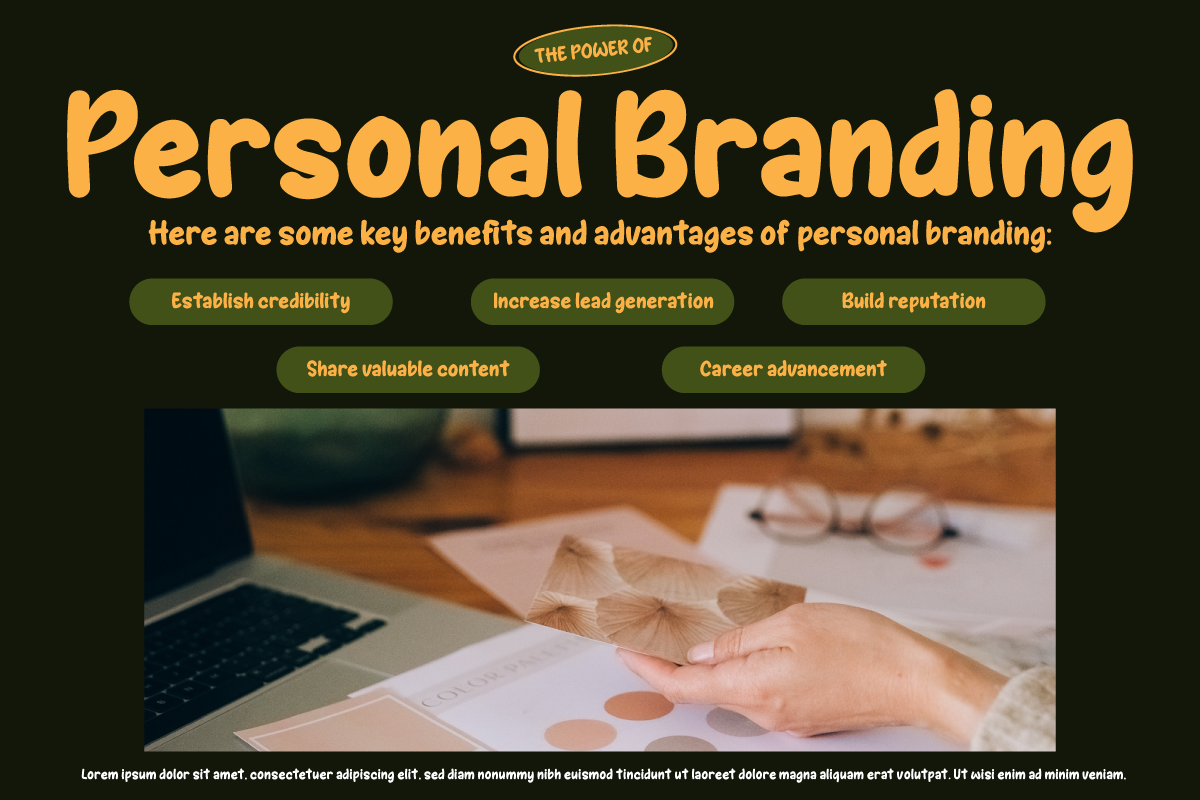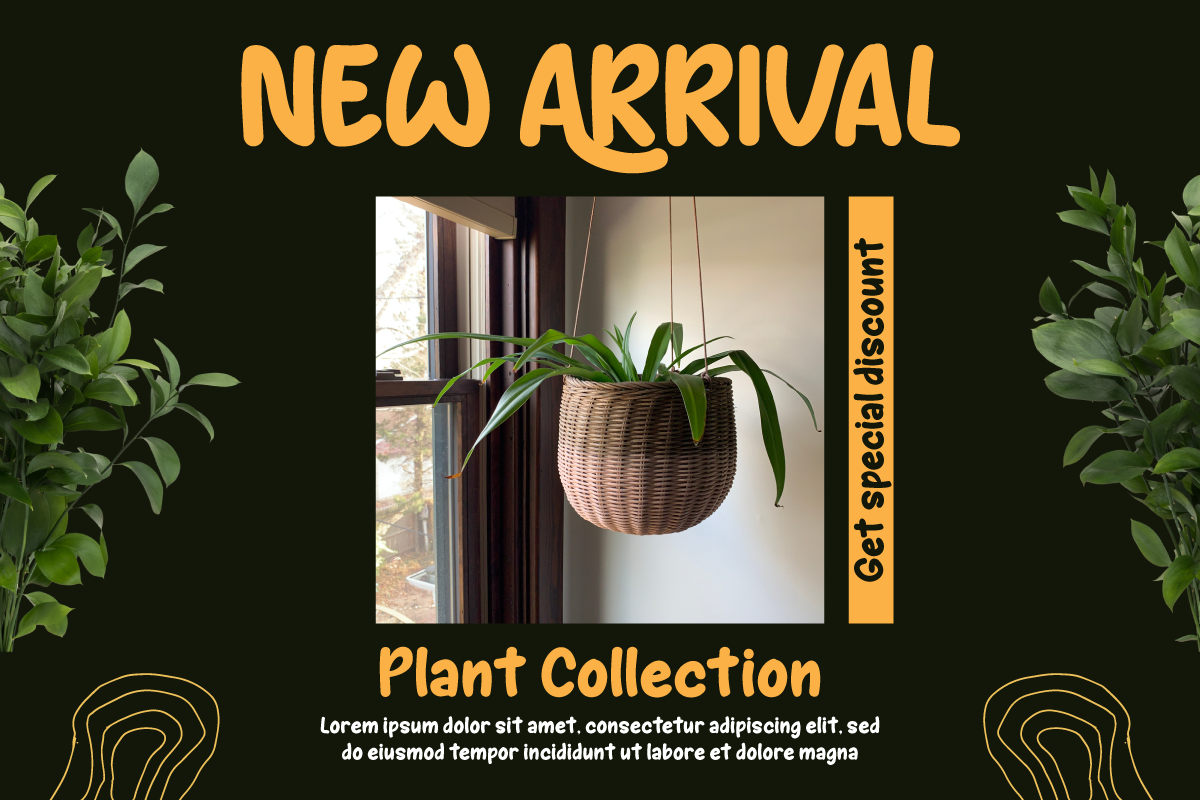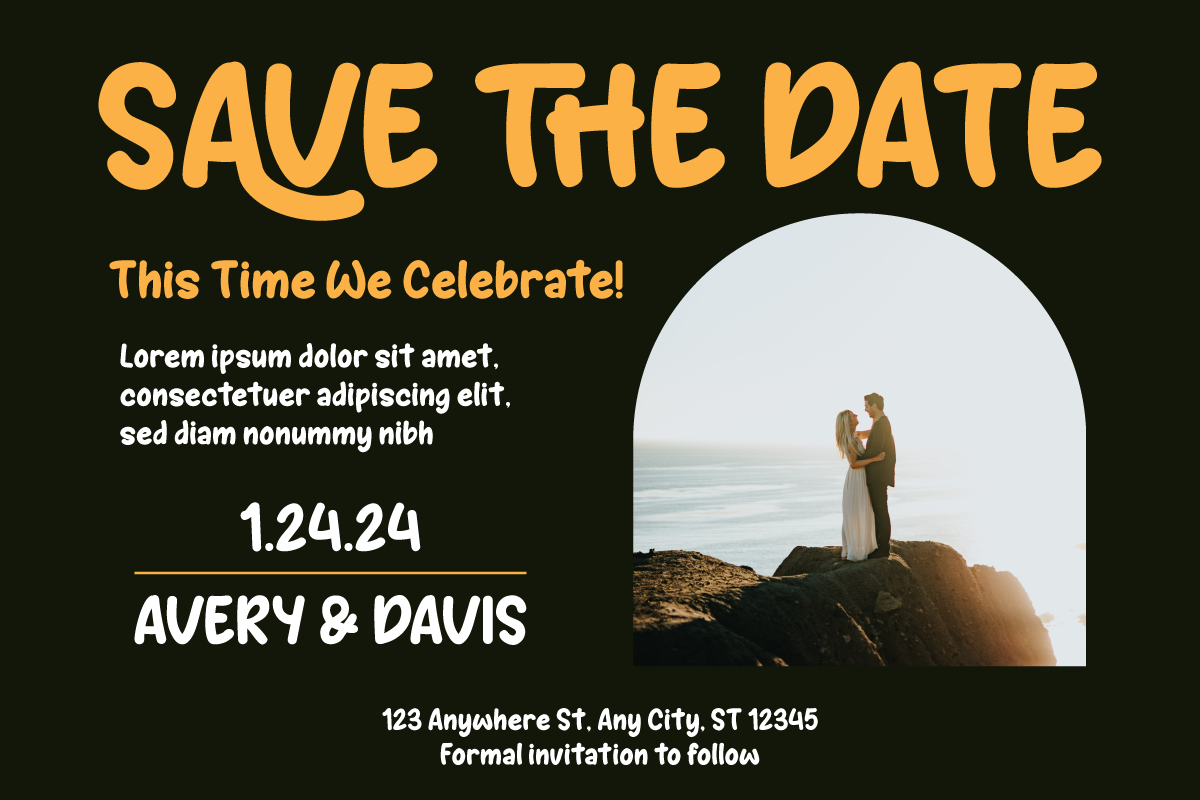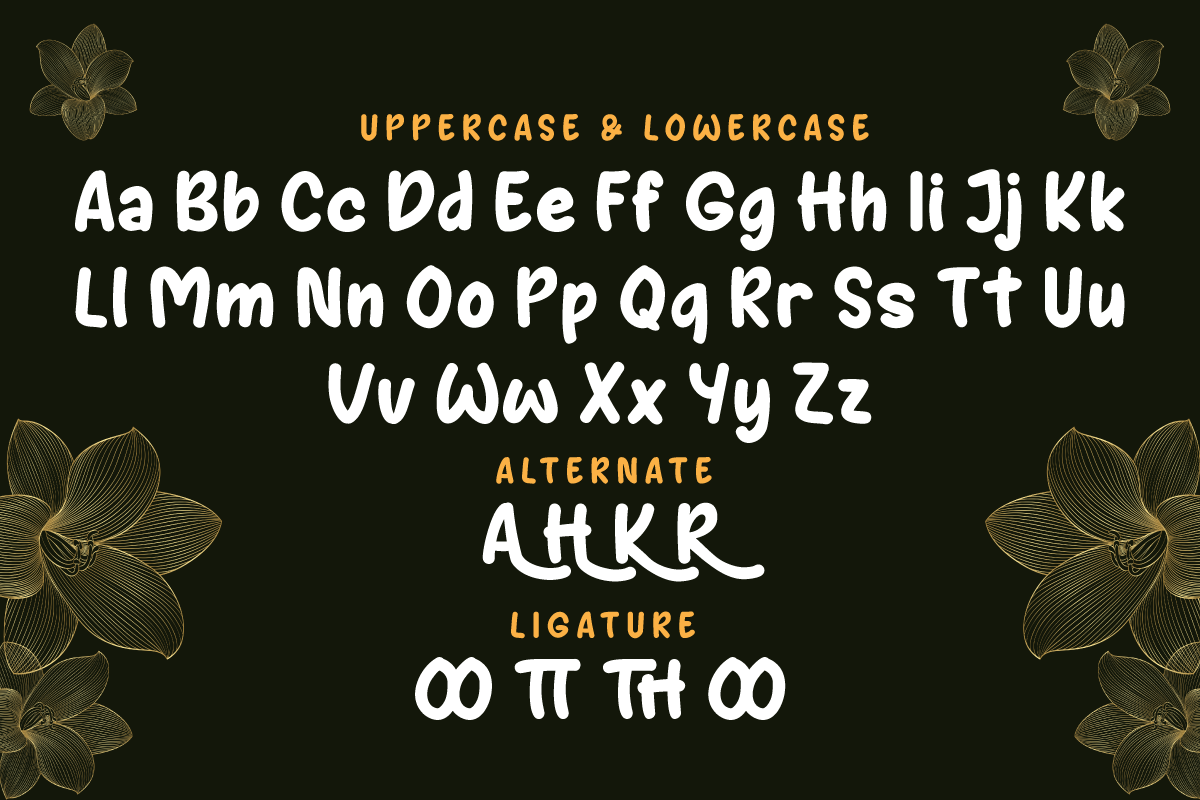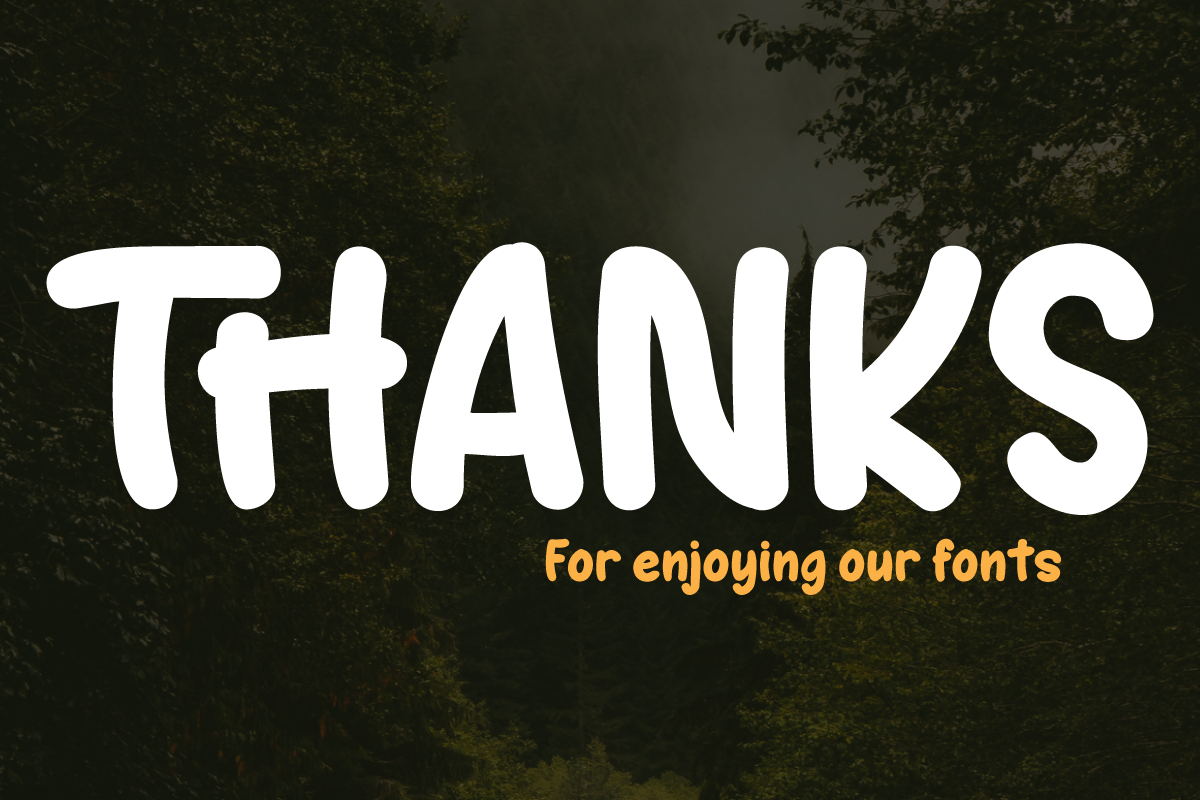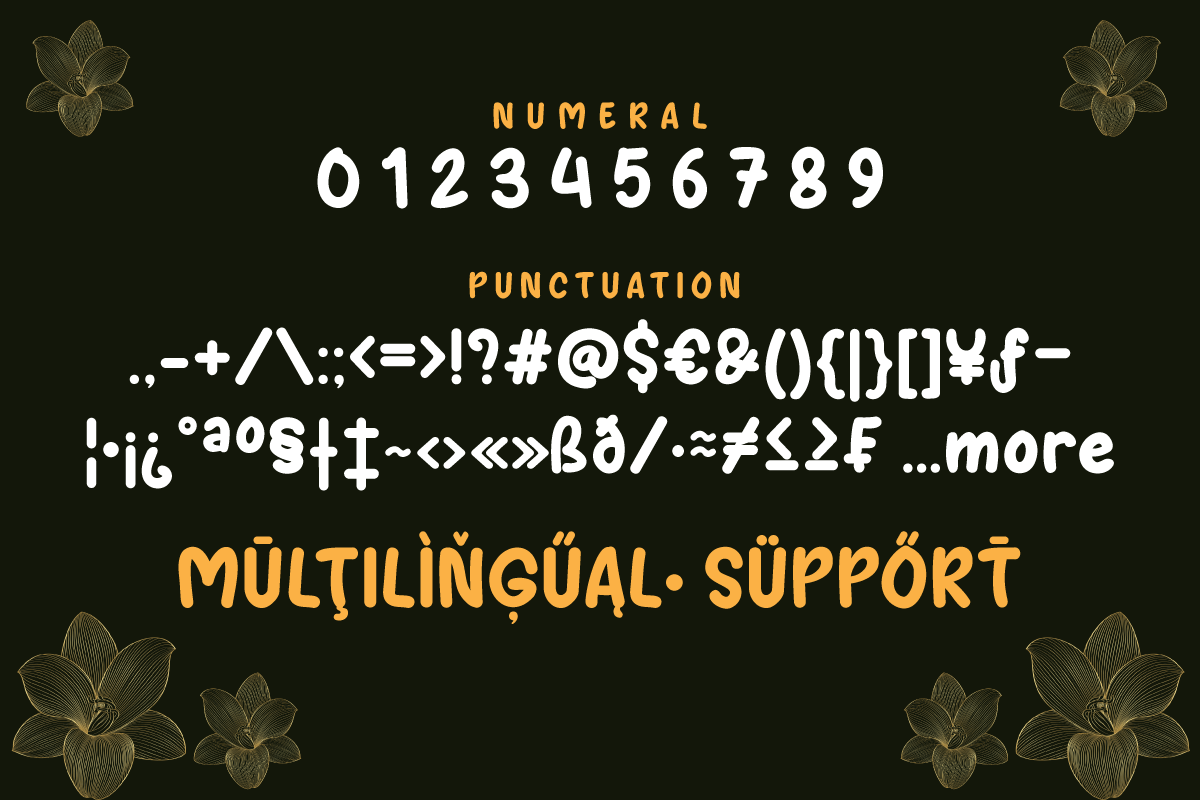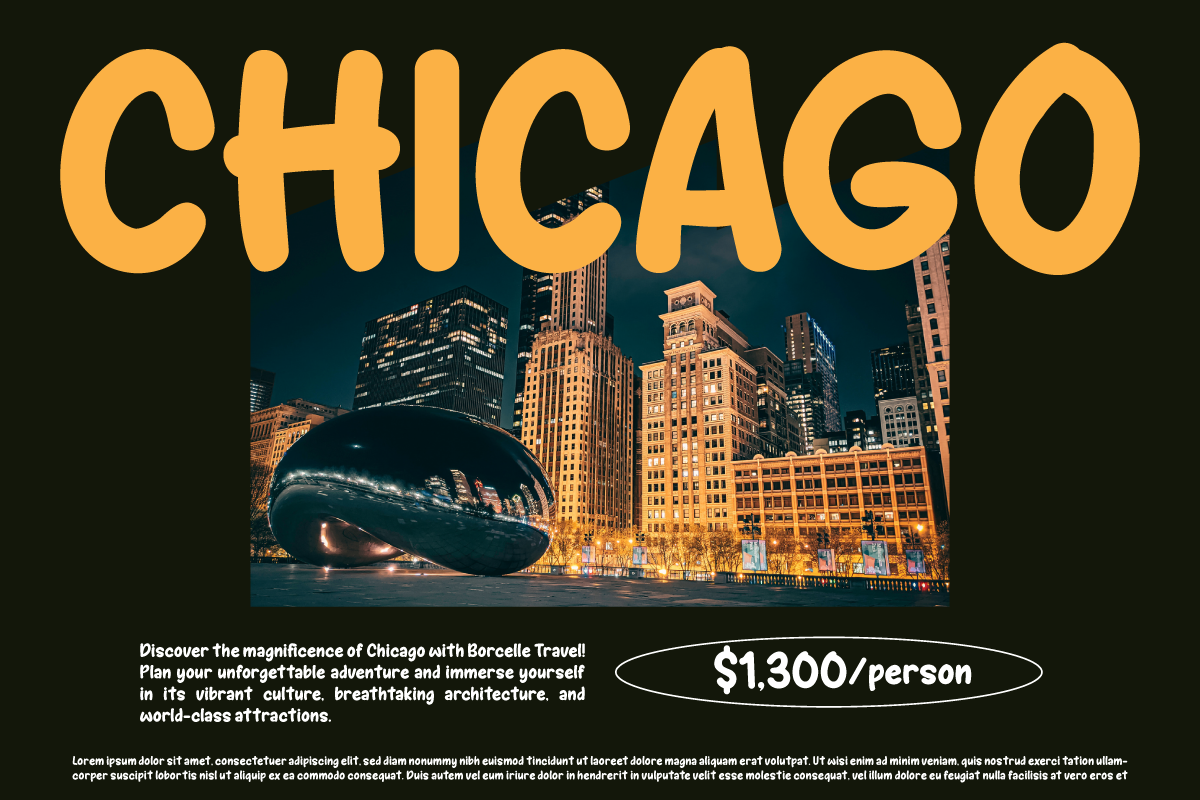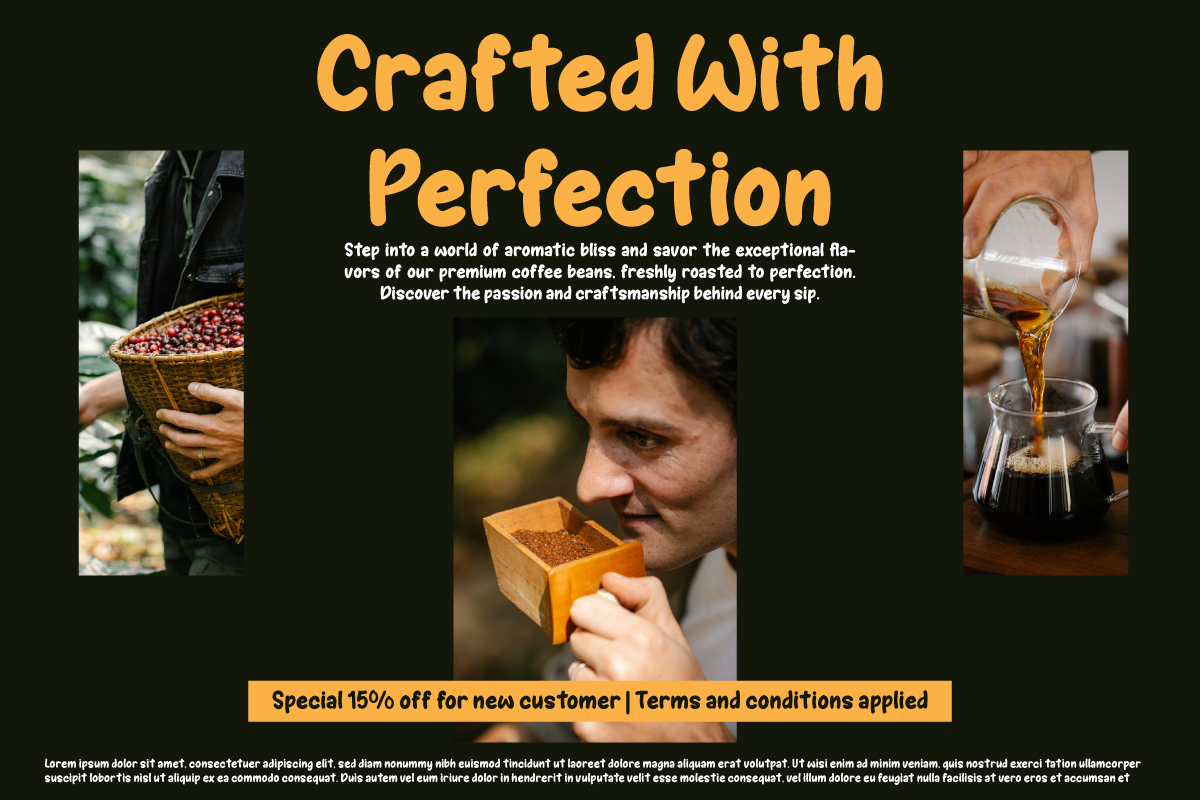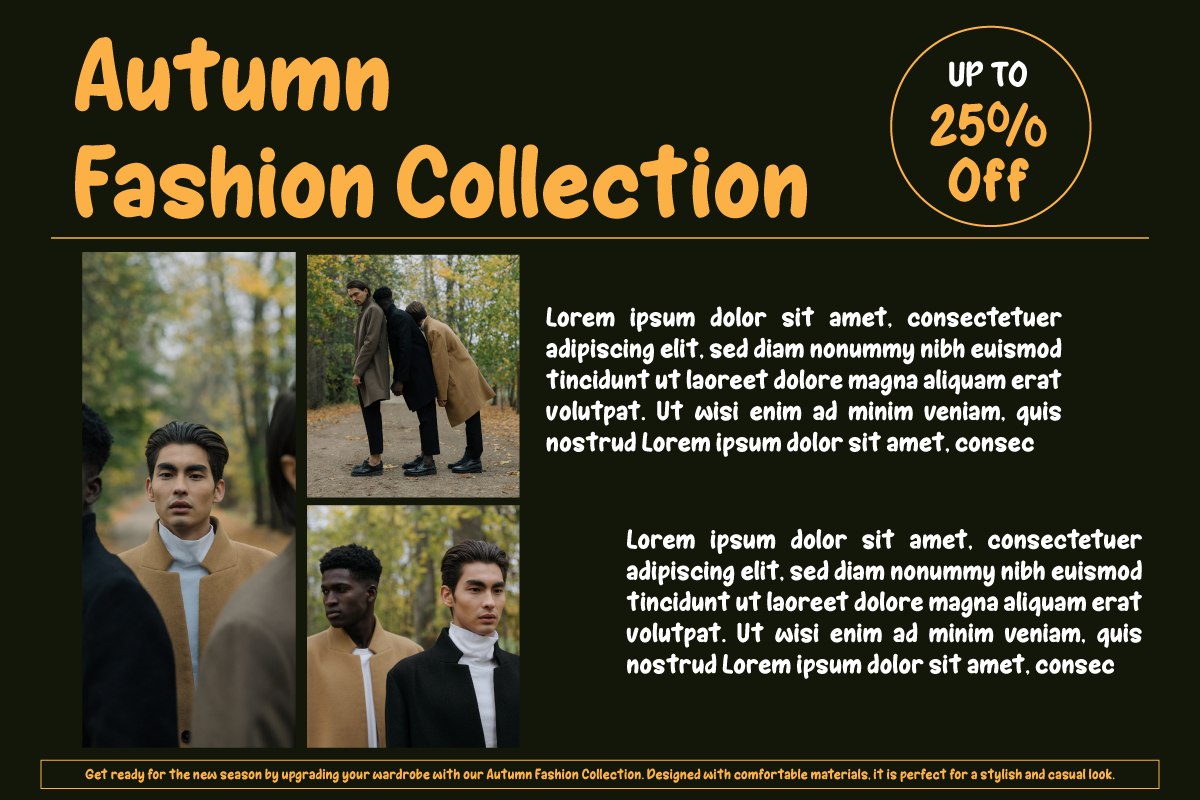
AYARA | Handwritten Display
Introducing "AYARA Font" - a harmonious fusion of traditional handwriting and contemporary design. Our font exudes a captivating blend of elegance and authenticity, making it the perfect choice for infusing your projects with a distinctive personal touch. Whether you're working on invitations, posters, or branding materials, AYARA Font effortlessly adds a unique handwritten style that instantly grabs attention.
AYARA Font stands out thanks to its meticulous craftsmanship, with each character crafted to mirror genuine handwritten text. This attention to detail lends a warm and personal ambiance to your designs.
Its versatility shines through in its adaptability. AYARA Font gracefully complements a wide range of projects, from the elegance of wedding invitations to the vibrancy of social media graphics.
Furthermore, AYARA Font offers a range of OpenType features that enhance both flow and readability. Ligatures and alternates contribute to a seamless and engaging reading experience. Moreover, it extends support to multiple languages, ensuring accessibility to a global audience.
Unlock the creative potential of expressive handwriting in your designs with AYARA Font. Elevate your artistic endeavors and create a lasting impact with this unique and adaptable typeface. Explore AYARA Font today and embark on a journey of limitless design possibilities.
- Alternate, Ligature